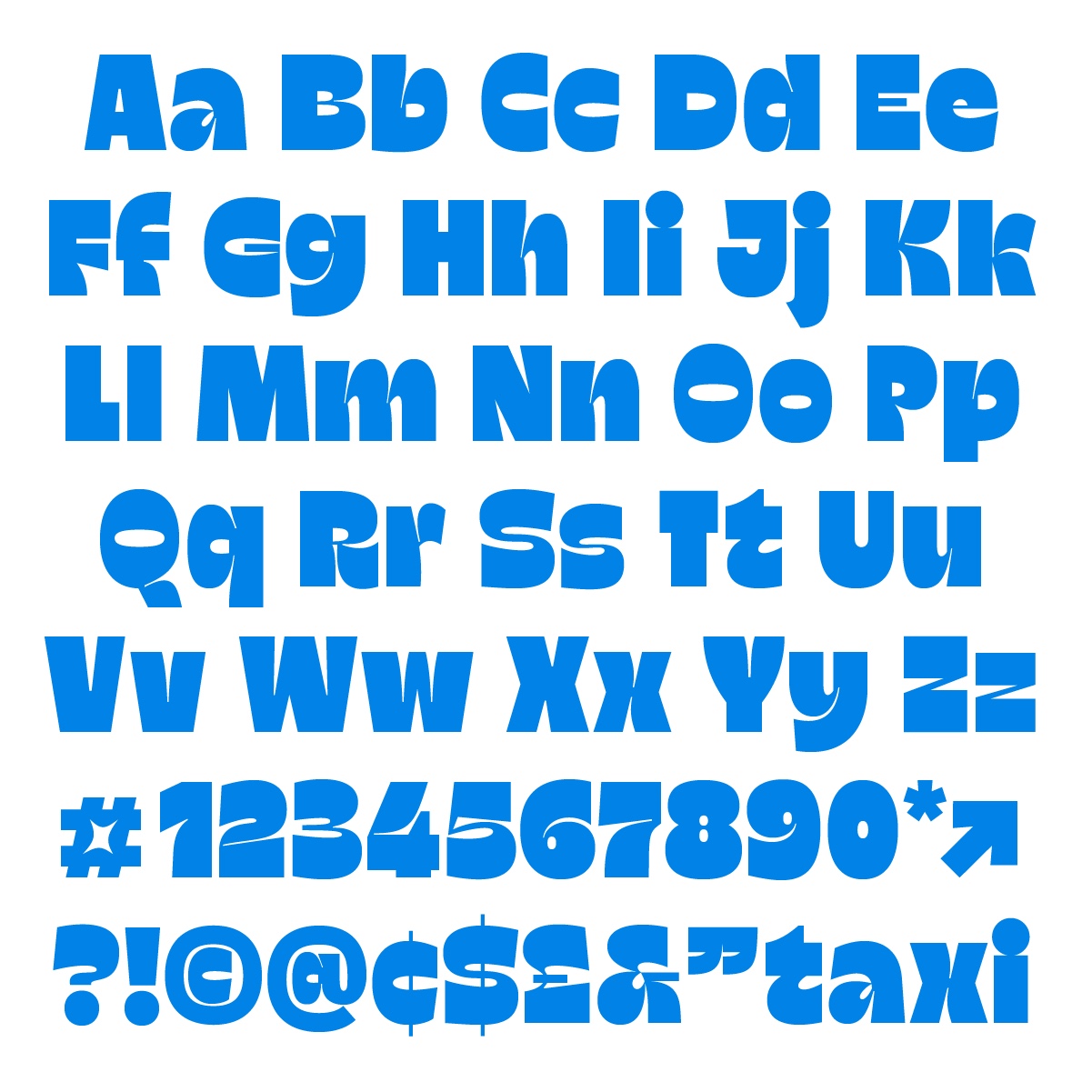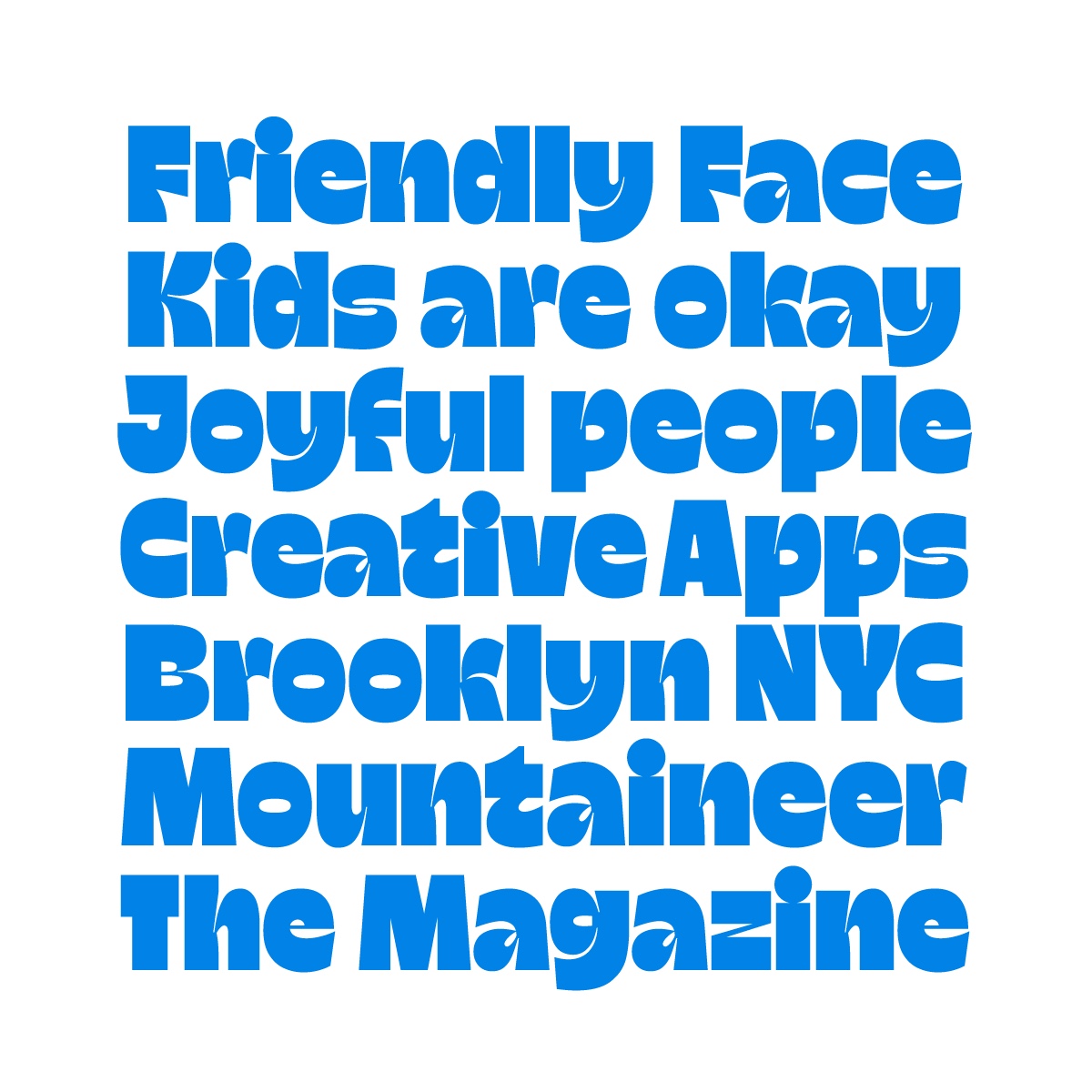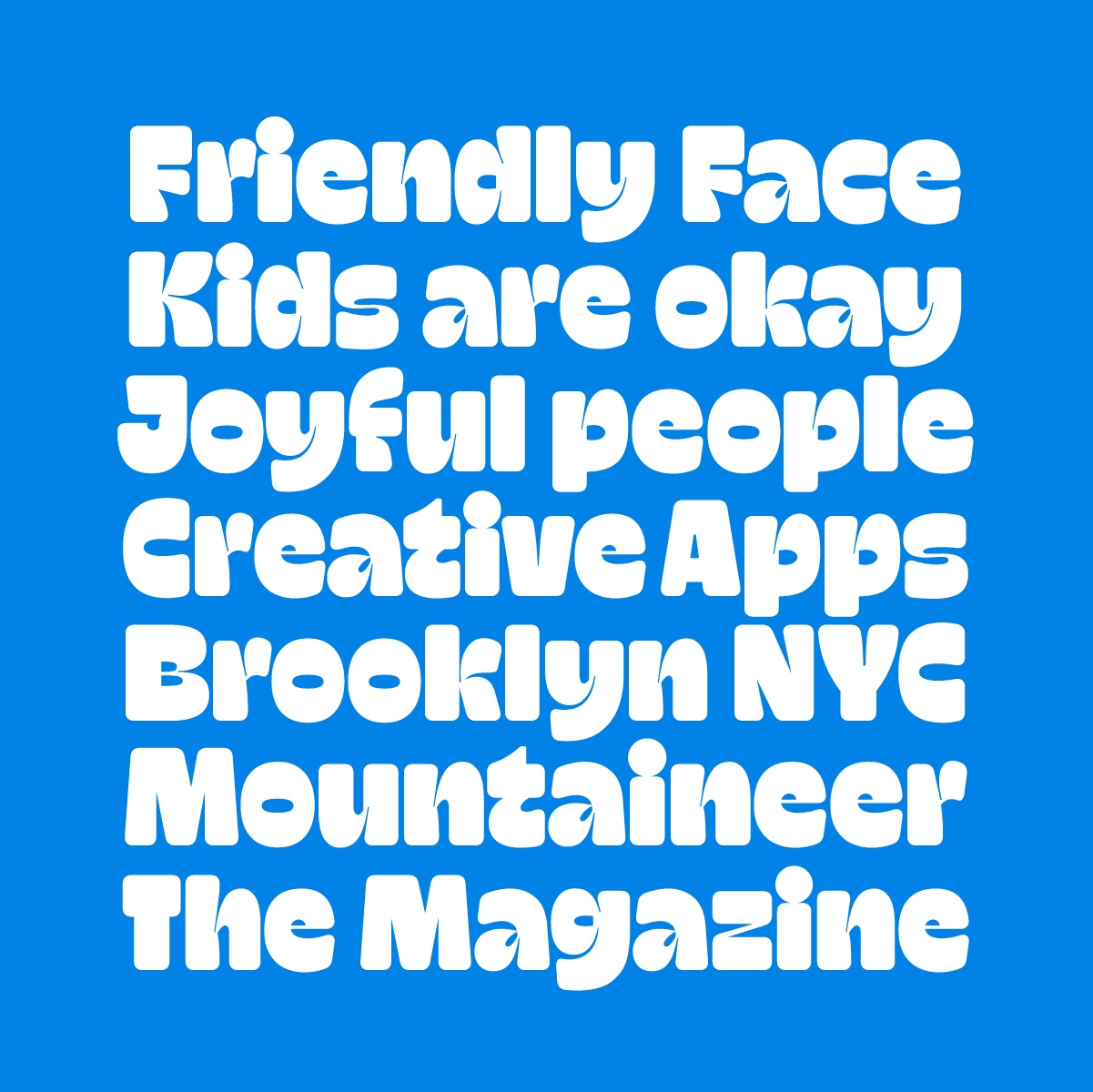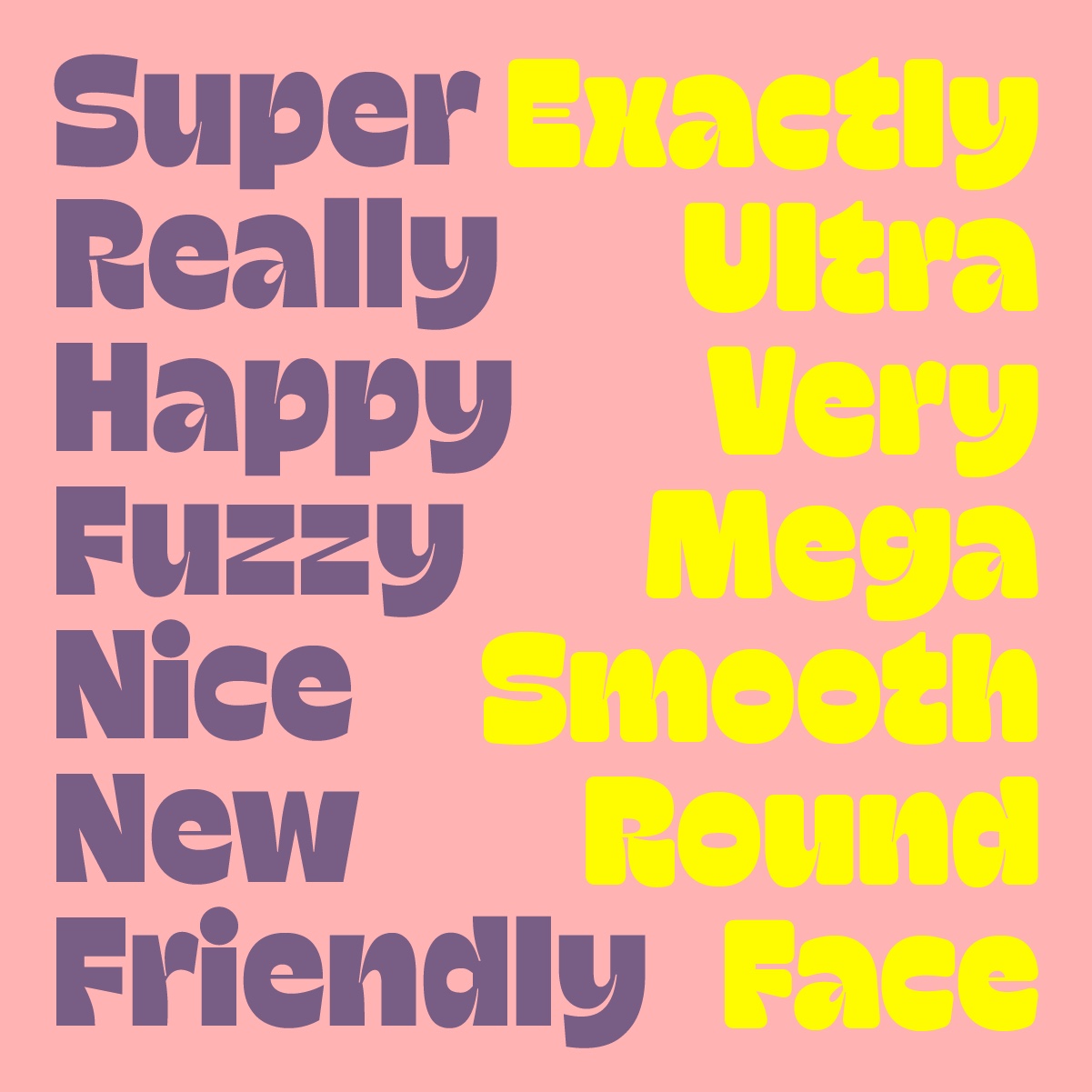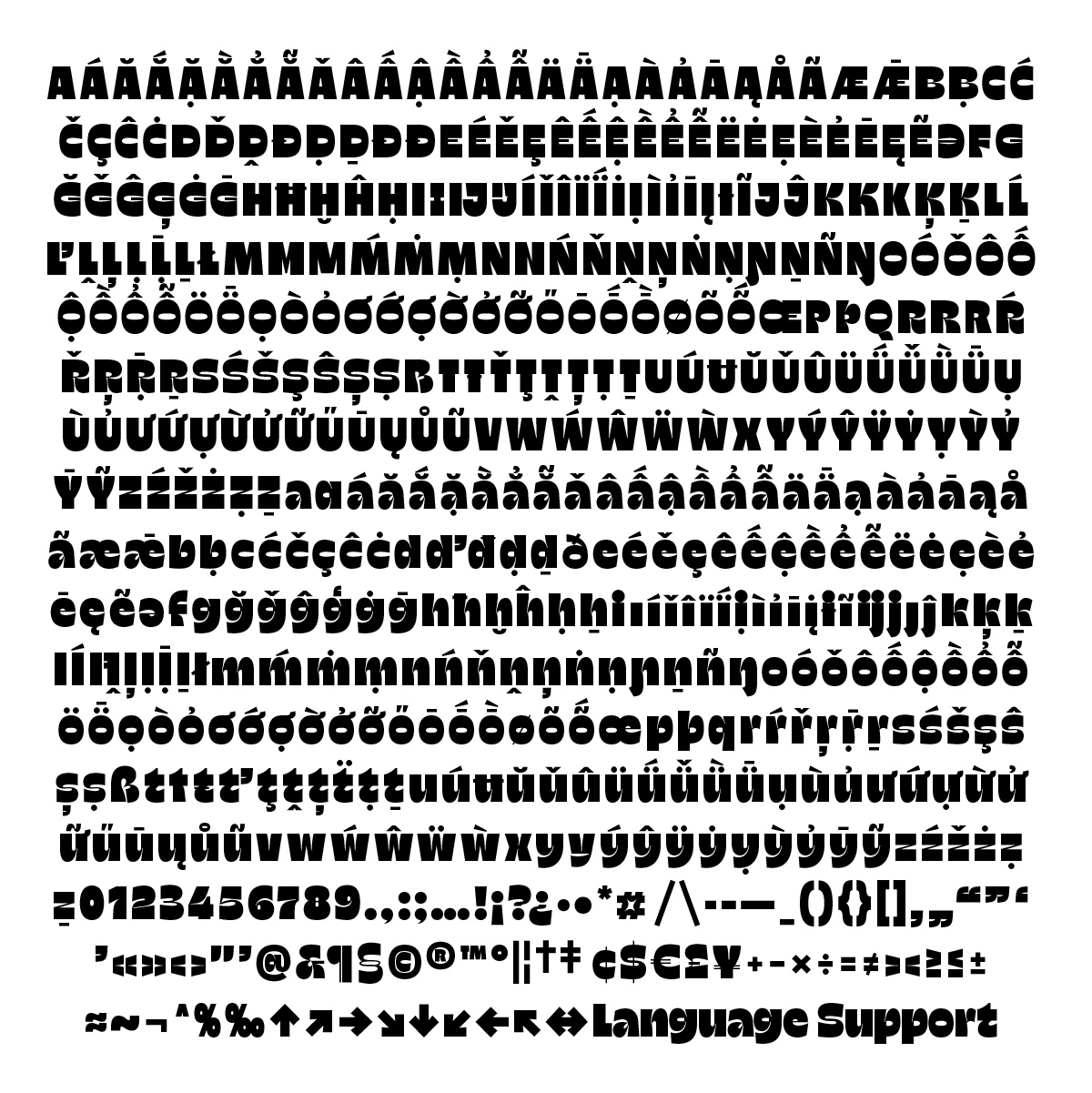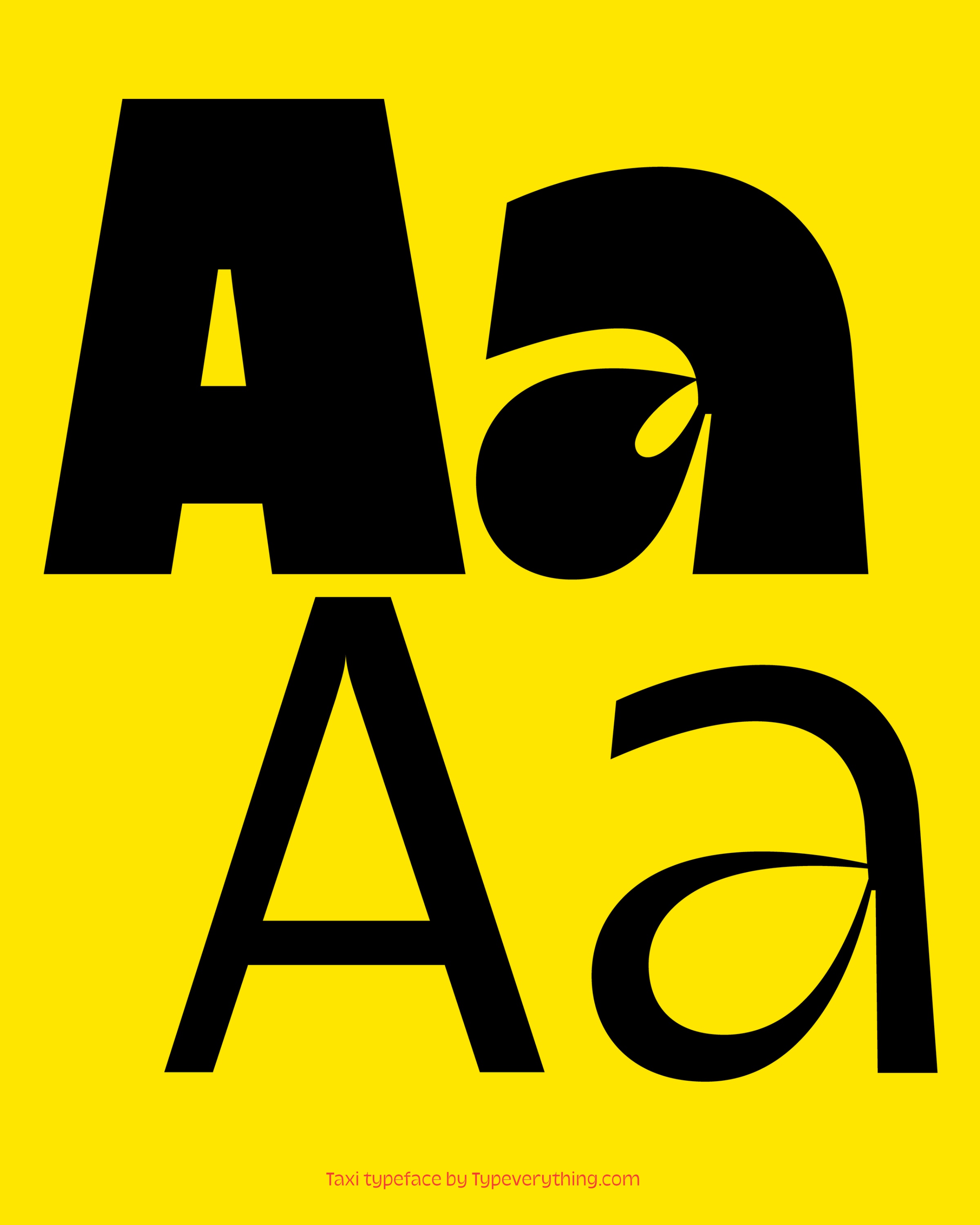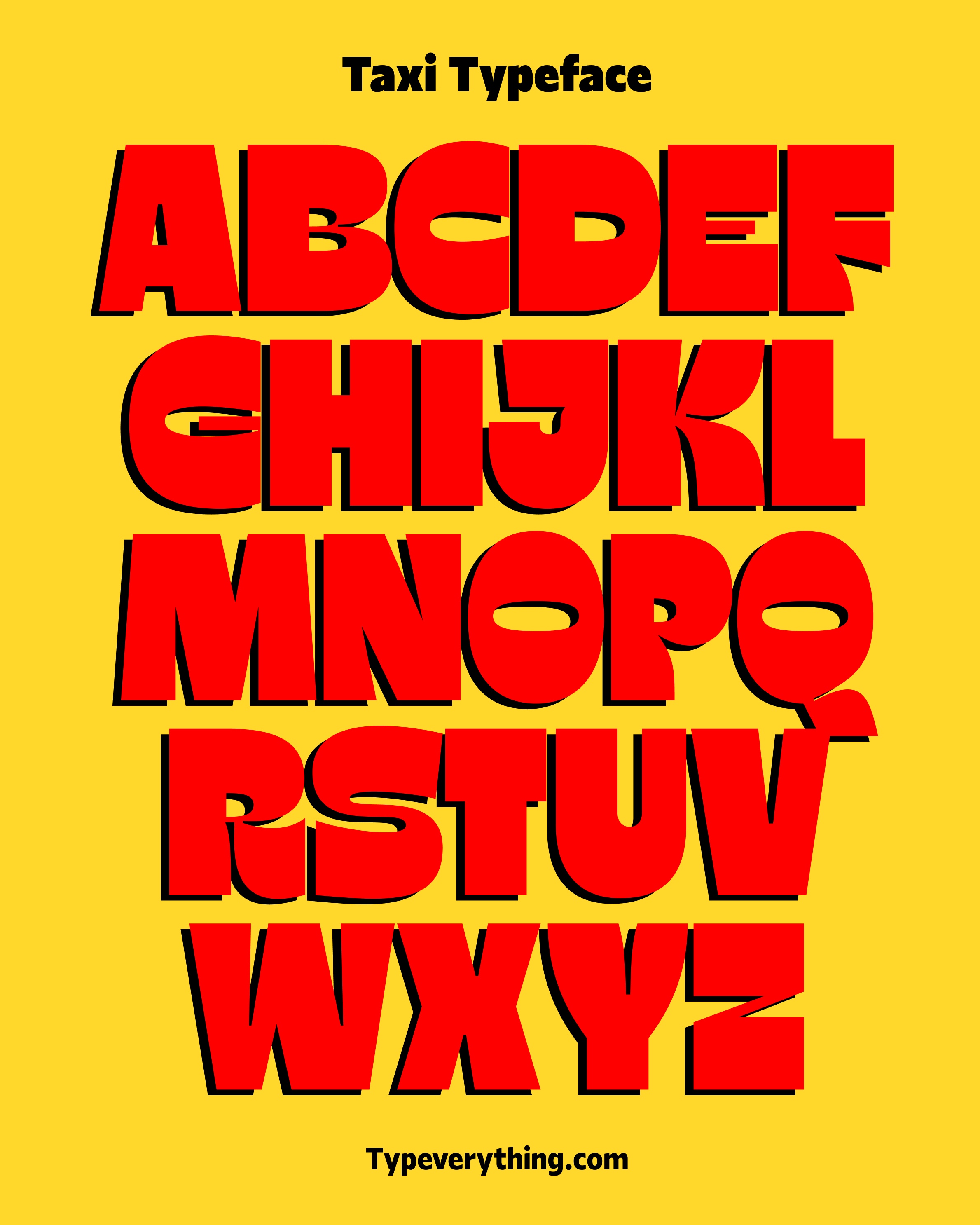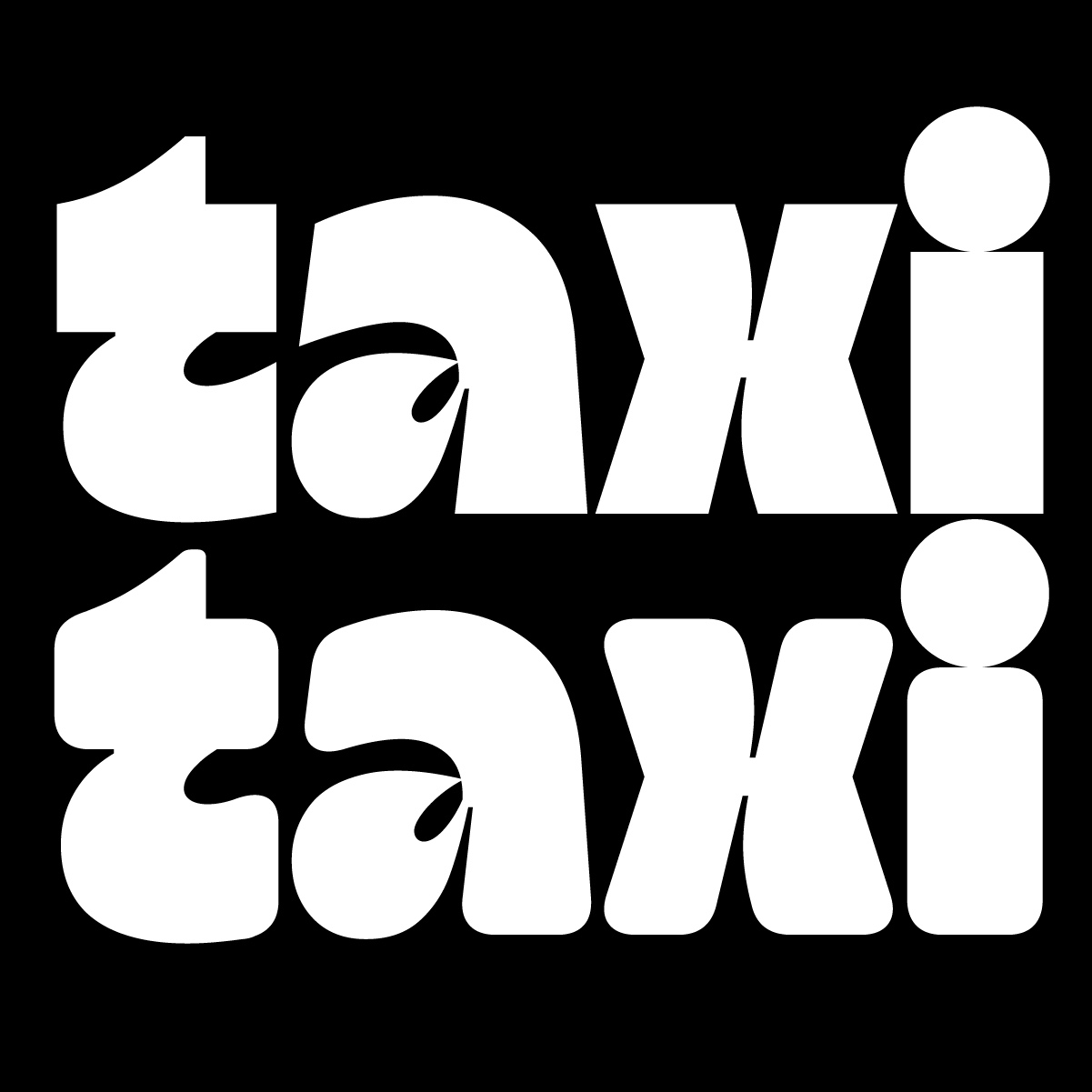
Taxi Typeface by Typeverything.com
Taxi is a delightful and versatile new typeface that brings a friendly and fun vibe to your projects. With two styles available—normal and rounded—and a range of 9 weights from Thin to Heavy, Taxi offers incredible versatility. The full family packs also include variable fonts. With its playfulness, Taxi adds a touch of approachability to any design, making it the perfect choice for captivating branding, eye-catching packaging, and cheerful designs.